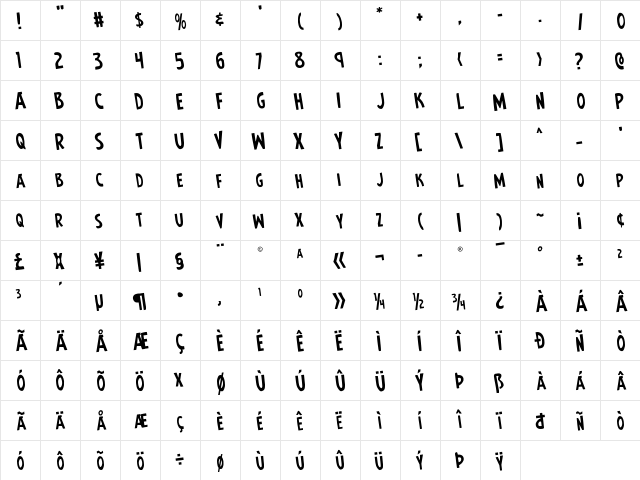
Earth's Mightiest Rotated Regular
Design Context for Earth's Mightiest Rotated Typeface
Earth's Mightiest Rotated is a composed and adaptable typeface that performs quietly and consistently across a wide range of design contexts.